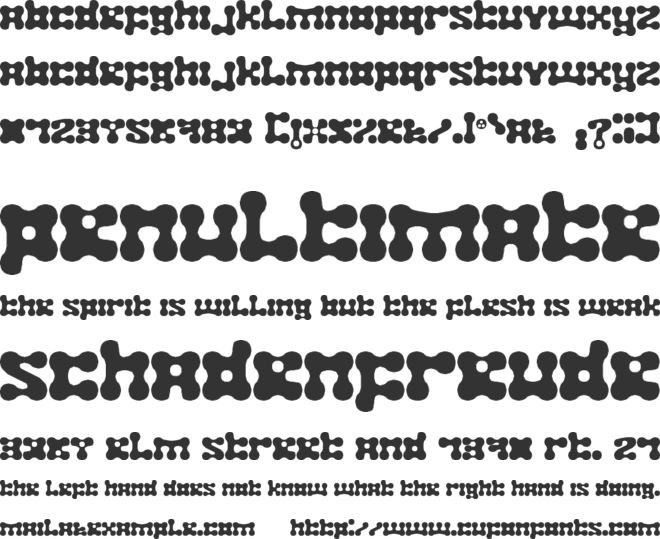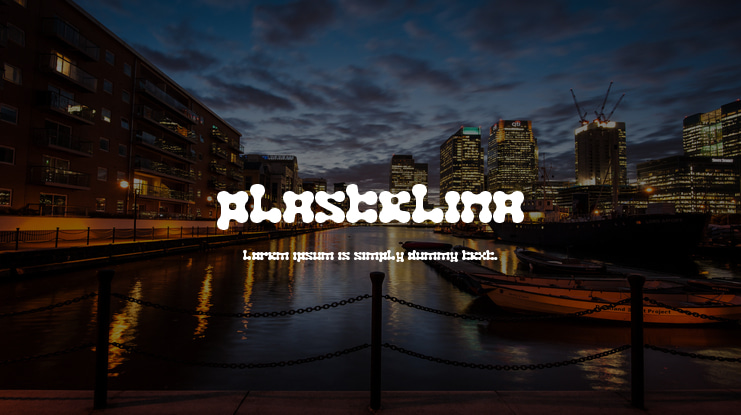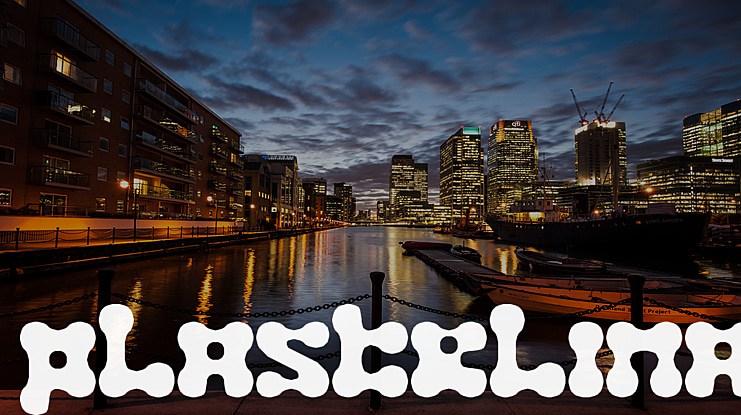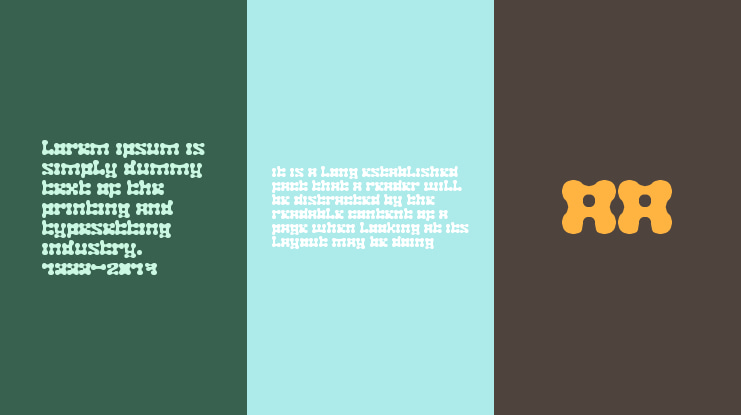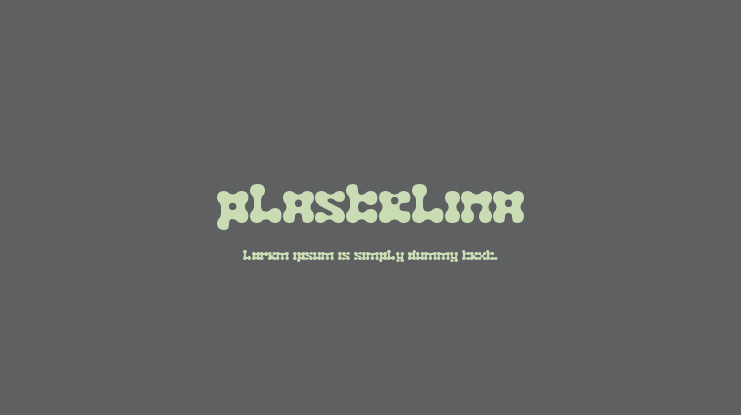
Plastelina Font
Plastelina is a some kind of modelling clay. Kids love it (or love to smear it everywhere they can). Plastelina is the same thing as Plasticine, but we don't use it as a brand name in Poland. I hope I've counted the height properly... And I hope they didn't mean "height over the baseline" or "height of the whole fontstruction"... All characters are lowercase, except for "a" and "l" because it didn't look very well. My first entry out of 3. What a great combo - handmade looking face and handmade sample!